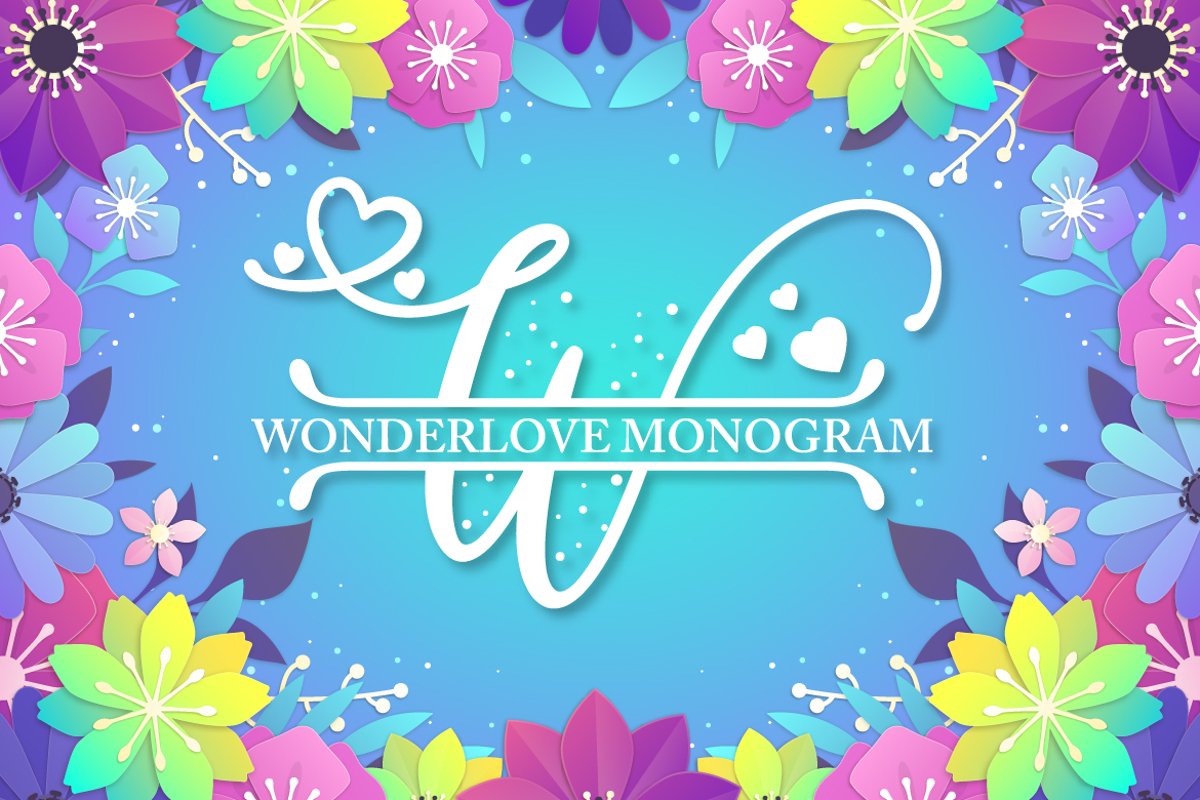
Wonderlove Monogram
Wonderlove Monogram is a stunning font with split elegant monograms letters suitable for digital projects, cards, invitations, weddings, logos, website or crafts projects.emboidery. Perfect for logo, magazine, news papers, posters, in branding, headers, invitations and save the dates, flyers, packaging, bags and so much more.
comes with two versions of Floral monogram & Floral split monogram ( you can use upper and lower case to grab each side of the split )